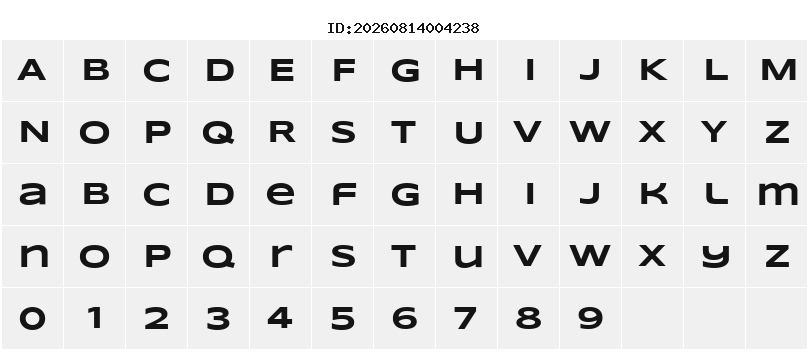
Syncopate Preview
• Font Name: Syncopate
• Font ID: Astigmatic(AOETI): Syncopate Bold: 2011
• Full Font Name: Syncopate Bold
• Designer: Astigmatic (AOETI)
• Manufacturer: Astigmatic (AOETI)
About Syncopate.ttf
Syncopate.ttf is a modern, elegant sans-serif font designed for ultimate readability and visual harmony. Perfect for branding, headlines, web design, and print materials.